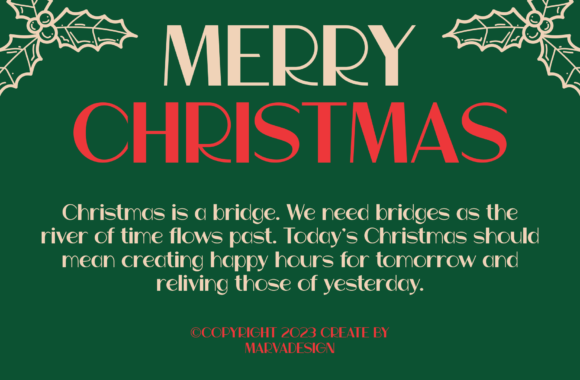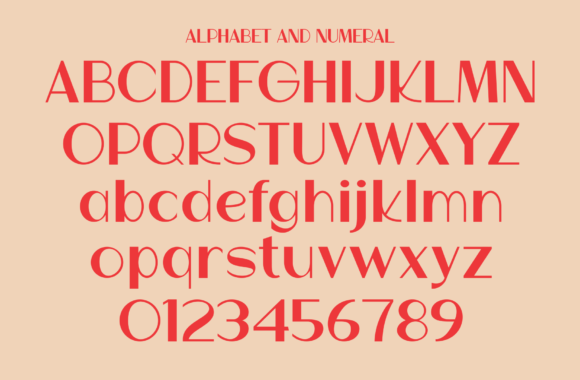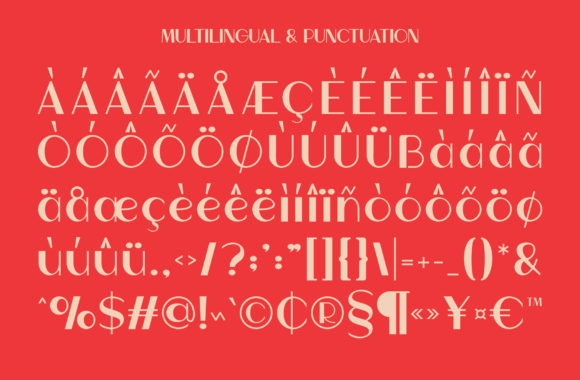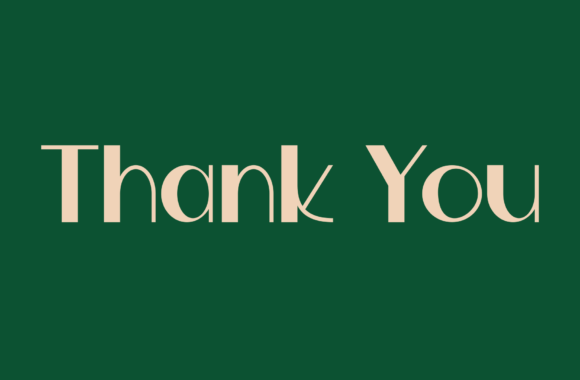
Introduction to Dearmas Font
Introducing our new product **Dearmas Font** – A Modern Christmas Fontauthentic display font.
| 👤 Author | Marvadesign |
The font suits any branding project like logo, Template Design, Product, and many more Outstanding in a wide range of contexts.